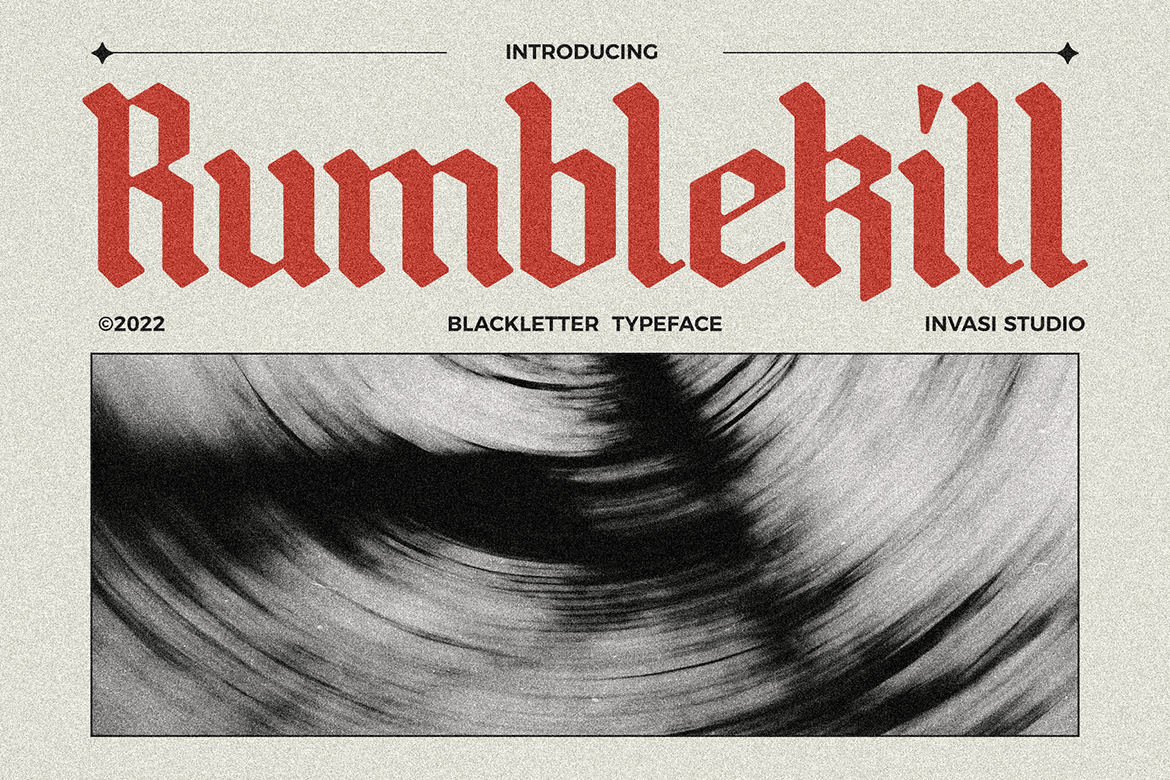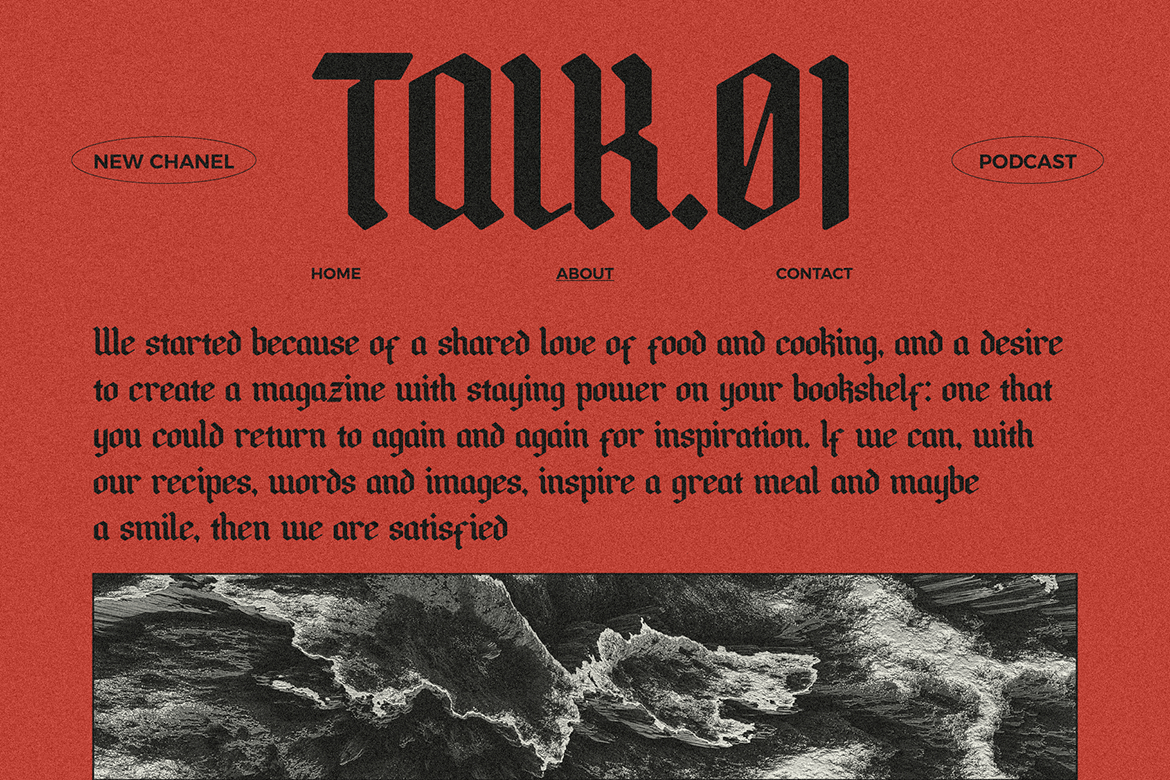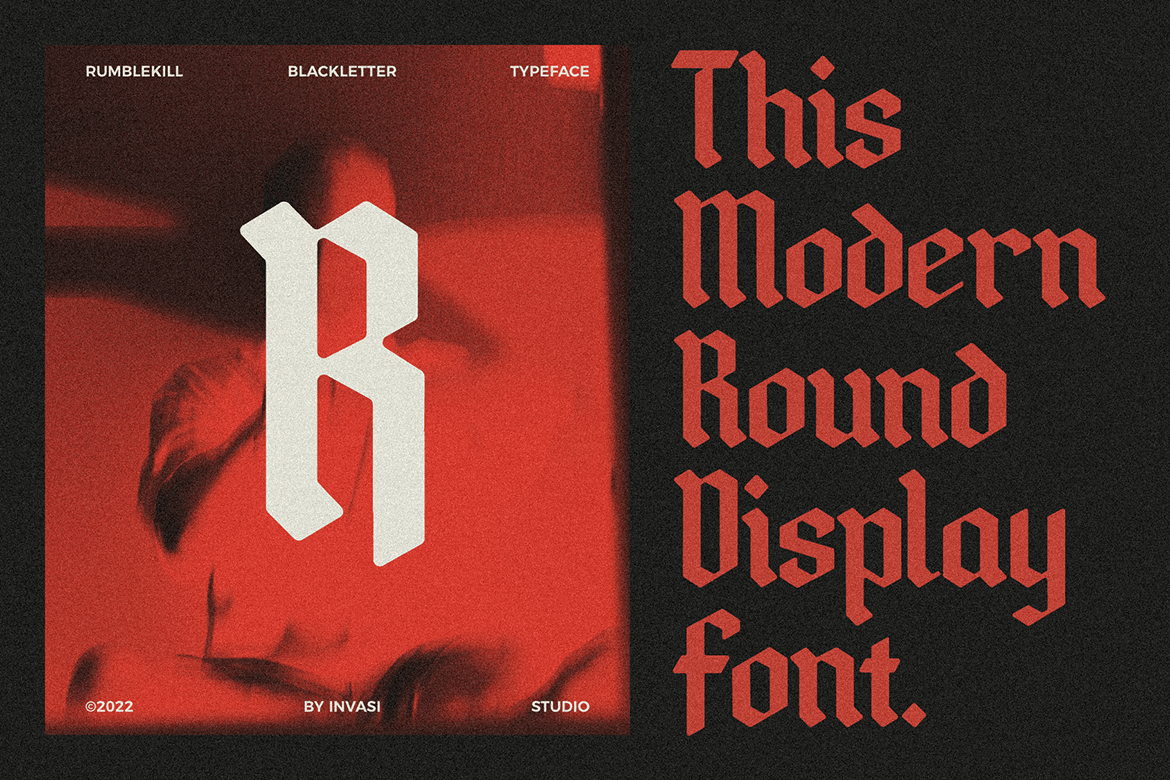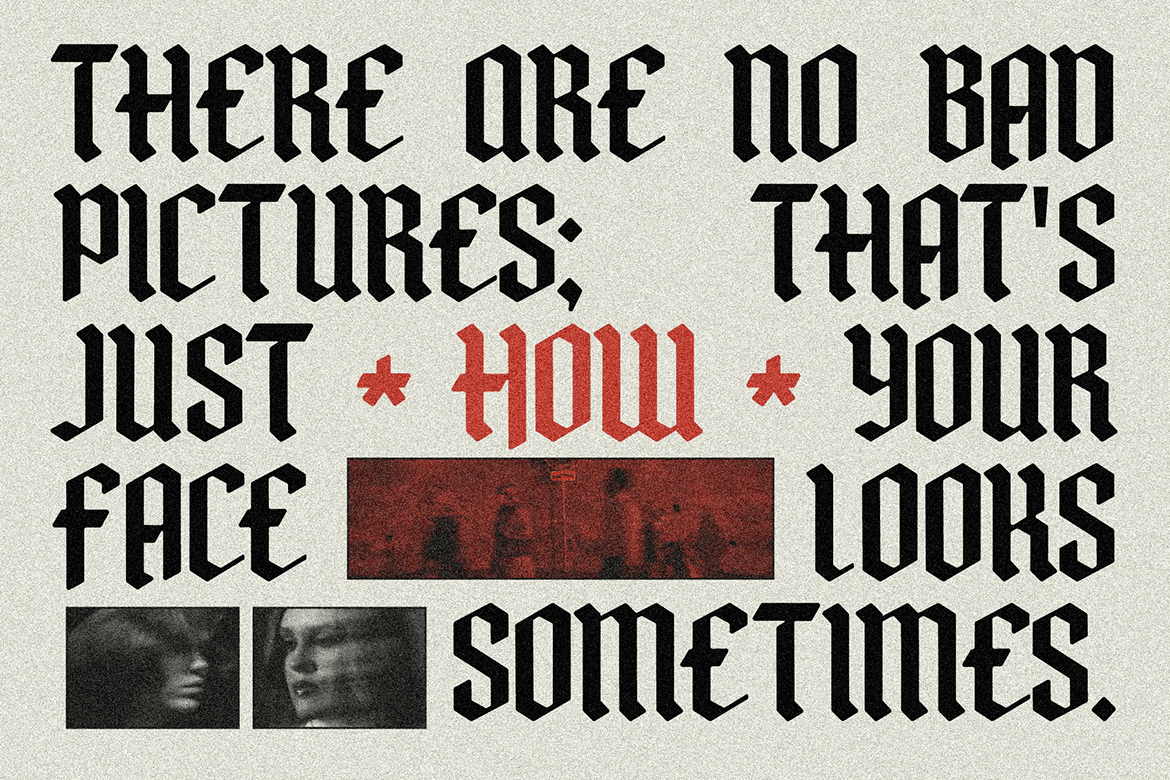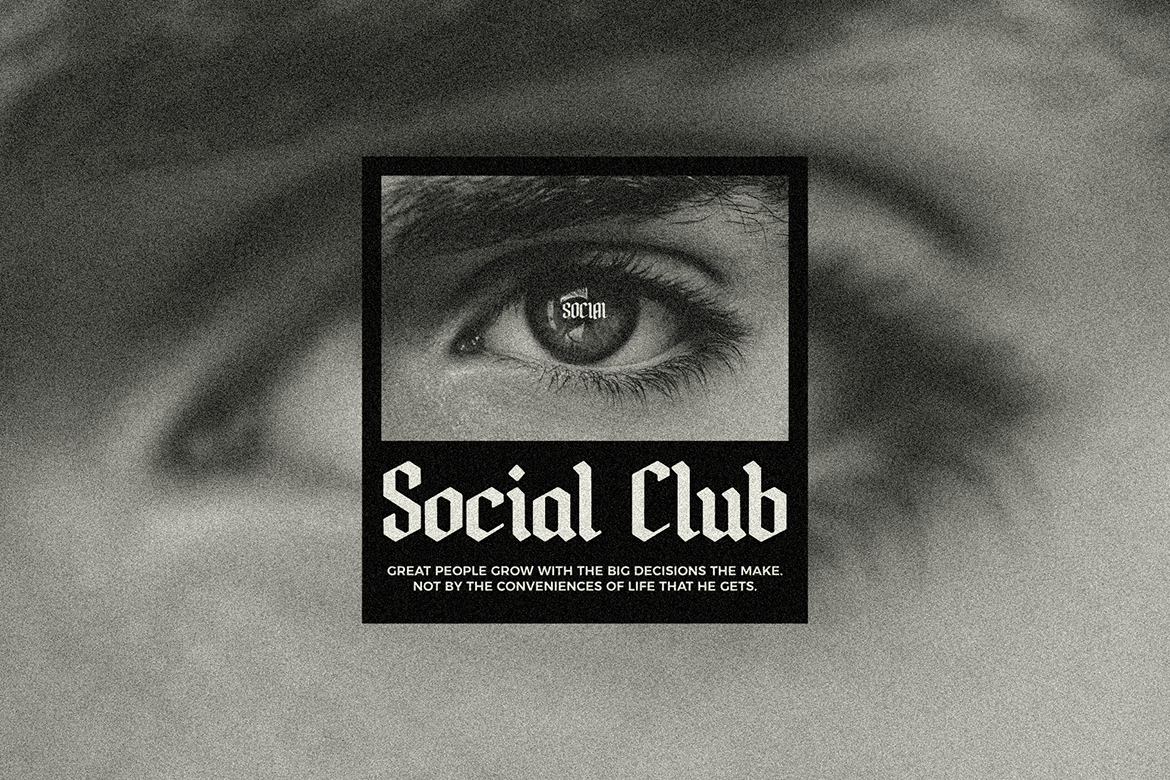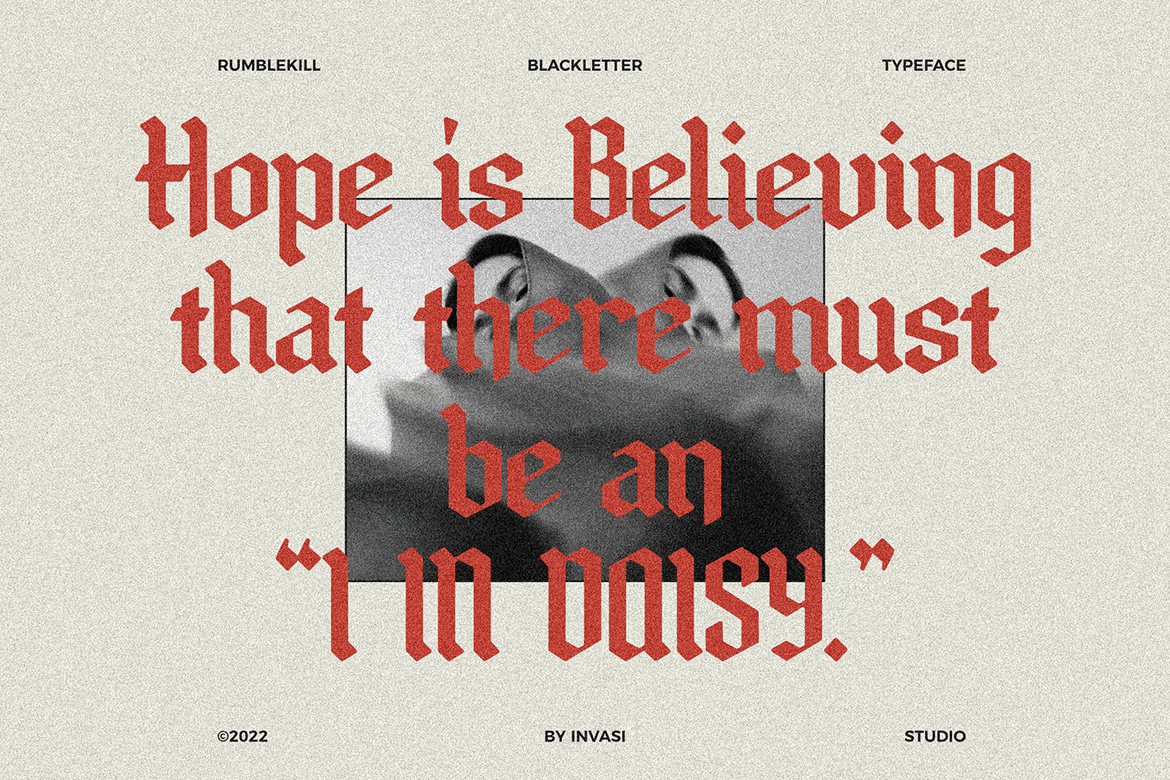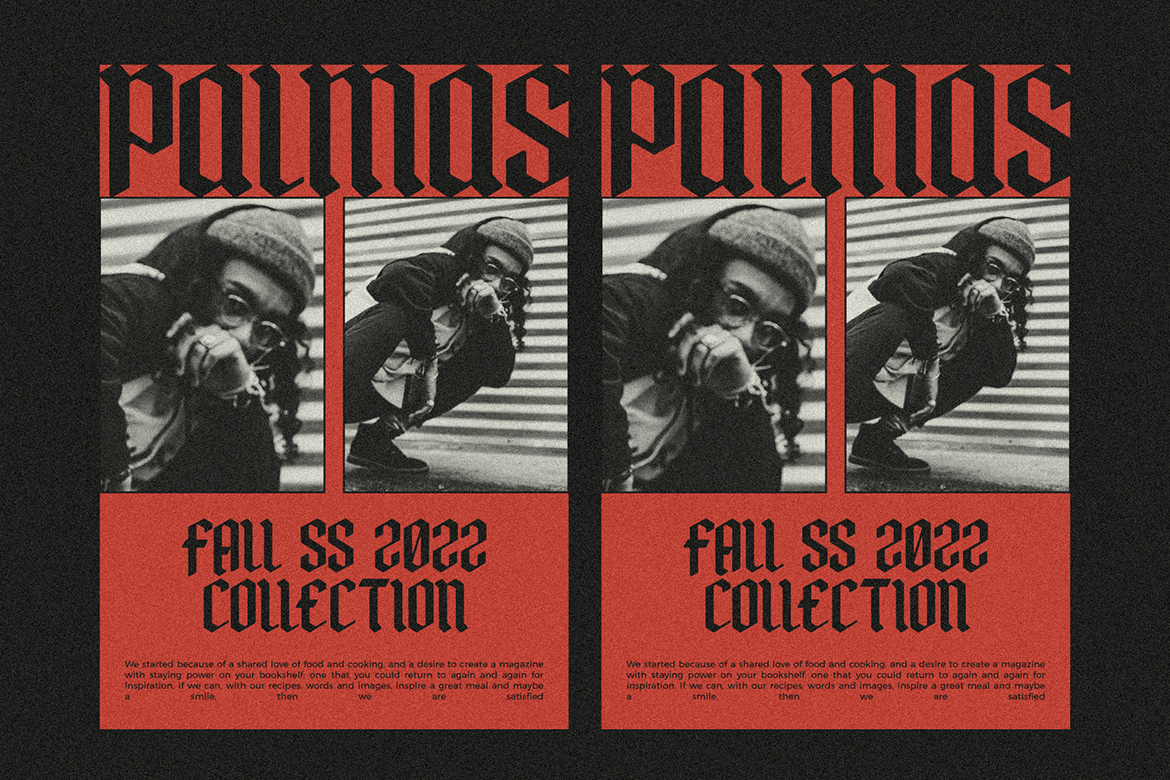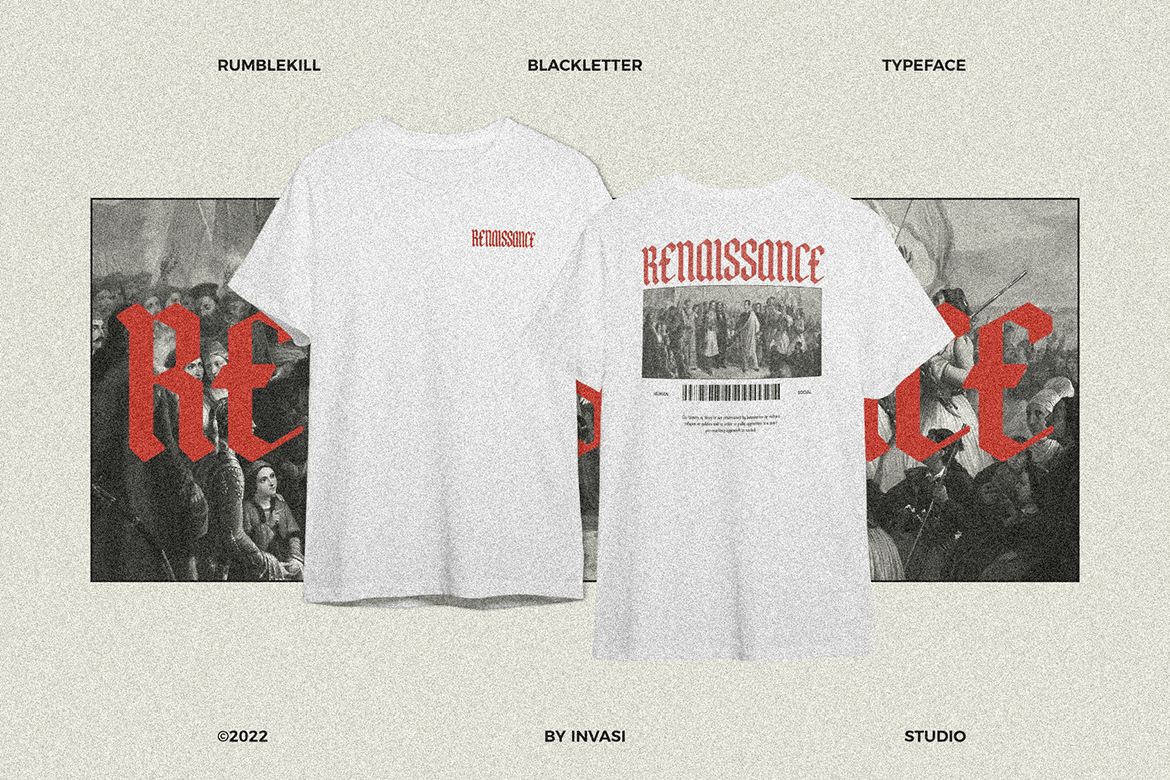
Rumblekill Font
About Rumblekill Font
Rumblekill is a blackletter font in the retro style. Elegant and rounded, it adds a bold touch to your projects and will inspire you to create something unique and modern.
Rumblekill Font is ideal for headings, flyers, greeting cards, product packaging, book covers, printed quotes, logotype, apparel designs, and album covers.